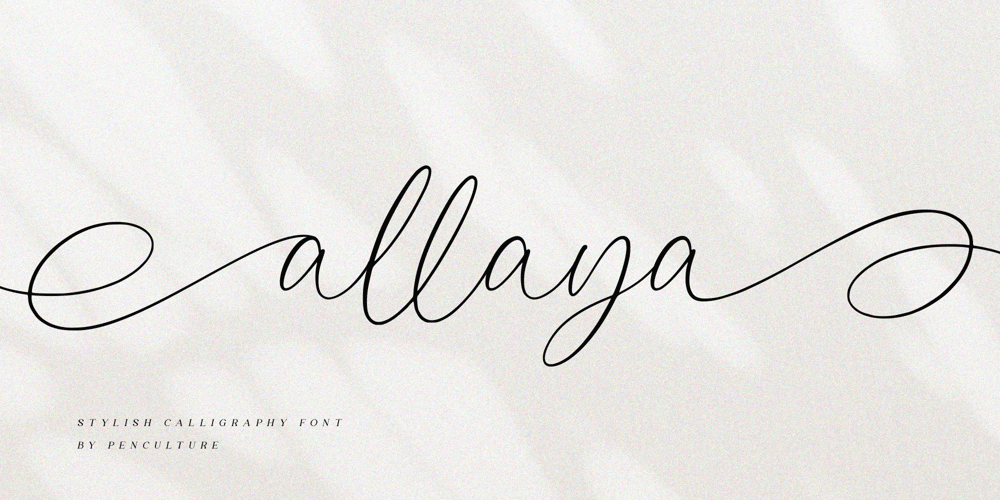
Allaya
Allaya Font Family was designed by Revo Farsiky and published by Pen Culture. Allaya contains 1 styles and family package options. Proudly present “allaya calligraphy font”Allaya is a gorgeous calligraphy font that exudes elegance, style, and a hint of modernity. Its flowing lines and graceful curves are inspired by traditional calligraphy, yet it has been designed with a contemporary touch that gives it a fresh and modern feel.One of the standout features of Allaya is its stunning ligatures, which create a seamless flow of letters and add a touch of sophistication to any project. The two swash options provide even more versatility and allow you to add a flourish to the beginning or end of a word or phrase.Allaya is perfect for a wide range of design projects, including wedding invitations, logos, branding, packaging, social media graphics, and more. Its versatility makes it suitable for both feminine and masculine designs, and its elegant and timeless style will elevate any project.I really hope you enjoy it – please do let me know what you think, comments & likes are always hugely welcomed and appreciated. More importantly, please don’t hesitate to drop me a message if you have any issues or queries.Thank you